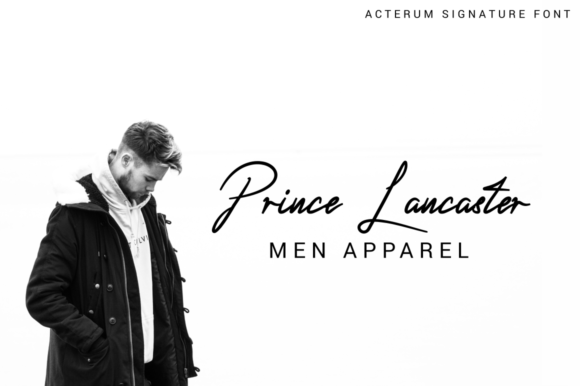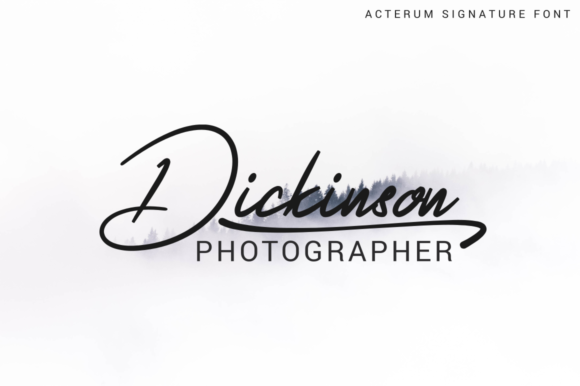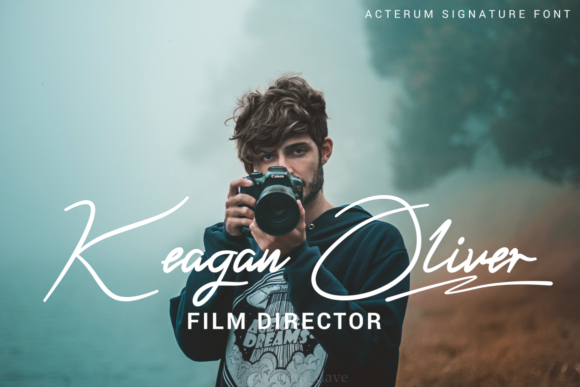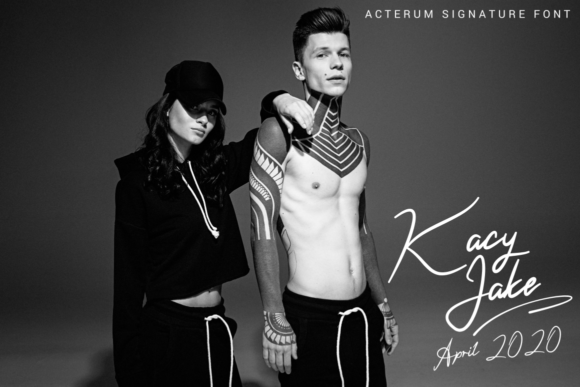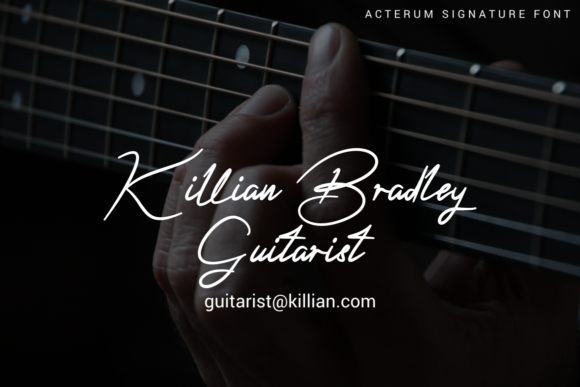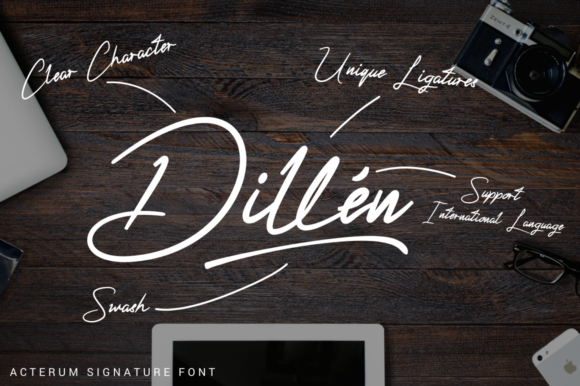
Introducing Acterum Font: Elevate Your Designs with Elegance and Sophistication
Are you a designer or crafter looking to add a touch of luxury and refinement to your projects? Look no further than Acterum Font, a stunning script font that exudes elegance and sophistication. With its rich swashes and unique, authentic style, Acterum is the perfect choice for anyone seeking to create beautiful, high-end designs.
The Characteristics of Acterum Font
Acterum Font is a gorgeous looking script with a range of characteristics that set it apart from other fonts. Its rich swashes add a level of complexity and visual interest, making it perfect for designs that require a bit of flair. The font’s unique, authentic style is reminiscent of traditional calligraphy, but with a modern twist that makes it suitable for a wide range of design applications.
Uses for Acterum Font
Acterum Font is incredibly versatile, making it suitable for a wide range of design ideas. Here are just a few examples of how you can use Acterum to elevate your designs:
- Wedding Invitations and Stationery: Add a touch of luxury and romance to your wedding invitations, stationery, and other paper goods with Acterum Font.
- Branding and Packaging: Use Acterum to create elegant and sophisticated branding and packaging for your business or product.
- Signage and Displays: Acterum Font is perfect for creating eye-catching signage and displays that require a level of elegance and refinement.
- Digital Designs: Use Acterum to add a touch of sophistication to your digital designs, including social media graphics, website headers, and more.
Tips for Using Acterum Font
To get the most out of Acterum Font, here are a few tips to keep in mind:
- Use it sparingly: Acterum Font is a statement font, so use it sparingly to avoid overwhelming your design.
- Pair it with a simple font: Pair Acterum with a simple font to create visual contrast and make your design more readable.
- Experiment with swashes: Acterum’s rich swashes can add a lot of visual interest to your design, so don’t be afraid to experiment and find the perfect combination for your project.
Why Choose Acterum Font?
So why choose Acterum Font over other script fonts? Here are just a few reasons:
- Unique and Authentic Style: Acterum Font has a unique and authentic style that sets it apart from other script fonts.
- High-Quality Design: Acterum Font is designed to the highest standards, ensuring that it looks great in any design application.
| Font Name | Acterum Font |
| Author | ZulArizal Studio |
In conclusion, Acterum Font is a stunning script font that can add a touch of elegance and sophistication to a wide range of design ideas. With its rich swashes and unique, authentic style, Acterum is the perfect choice for designers and crafters looking to create beautiful, high-end designs. Whether you’re working on a wedding invitation, branding project, or digital design, Acterum Font is sure to impress.